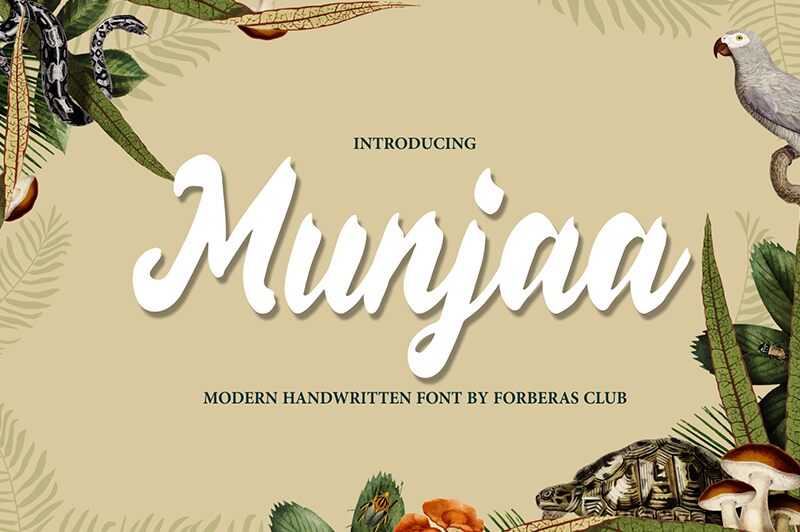
Munjaa is the perfect bold brush font for creative projects that require a strong, confident presence. Designed by the talented Forberas Club, this font packs a punch with its thick strokes and dynamic curves. Its unique style makes it suitable for a variety of projects, from branding and packaging to social media graphics and typography art. This eye-catching typeface is sure to stand out in any setting, making it an excellent choice for designers who want to make an impact. With Munjaa, you can craft stunning visuals that capture attention and leave a lasting impression.